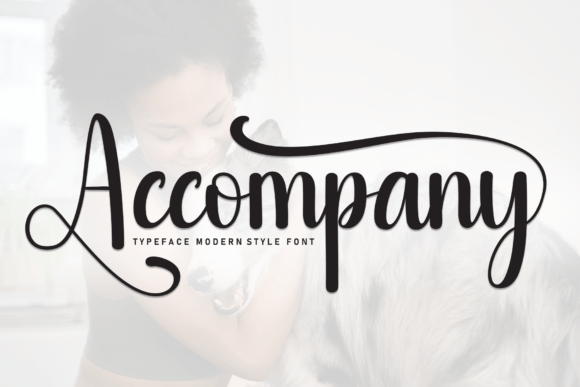
Immerse yourself in the allure of Accompany Font, a captivating script font family that exudes charm and playfulness. Designed with meticulous precision by the visionary William Jhody, Accompany is not just a font; it's an artistic expression that will elevate your designs to new heights of creativity.
Indulge in the sweet and friendly embrace of Accompany's hand-lettered characters, each stroke imbued with a unique personality that dances across your screen. This charming display font is a perfect match for those seeking a touch of whimsy and delight in their design projects.
Accompany's versatility knows no bounds, making it the ideal choice for a multitude of applications. Whether you're crafting heartfelt wedding invitations, creating personalized cards, or designing playful posters, Accompany effortlessly complements your vision and adds a touch of magic to your creations.
With Accompany, you'll discover a font that captures the essence of joy and warmth, effortlessly transforming your designs into captivating works of art. Its ability to evoke emotions and create lasting impressions makes it a must-have for designers seeking to leave an indelible mark on their audience.
Accompany is more than just a font; it's an invitation to embark on a creative journey where imagination reigns supreme. Let its enchanting curves and playful spirit ignite your passion for design, leaving your audience captivated and inspired.